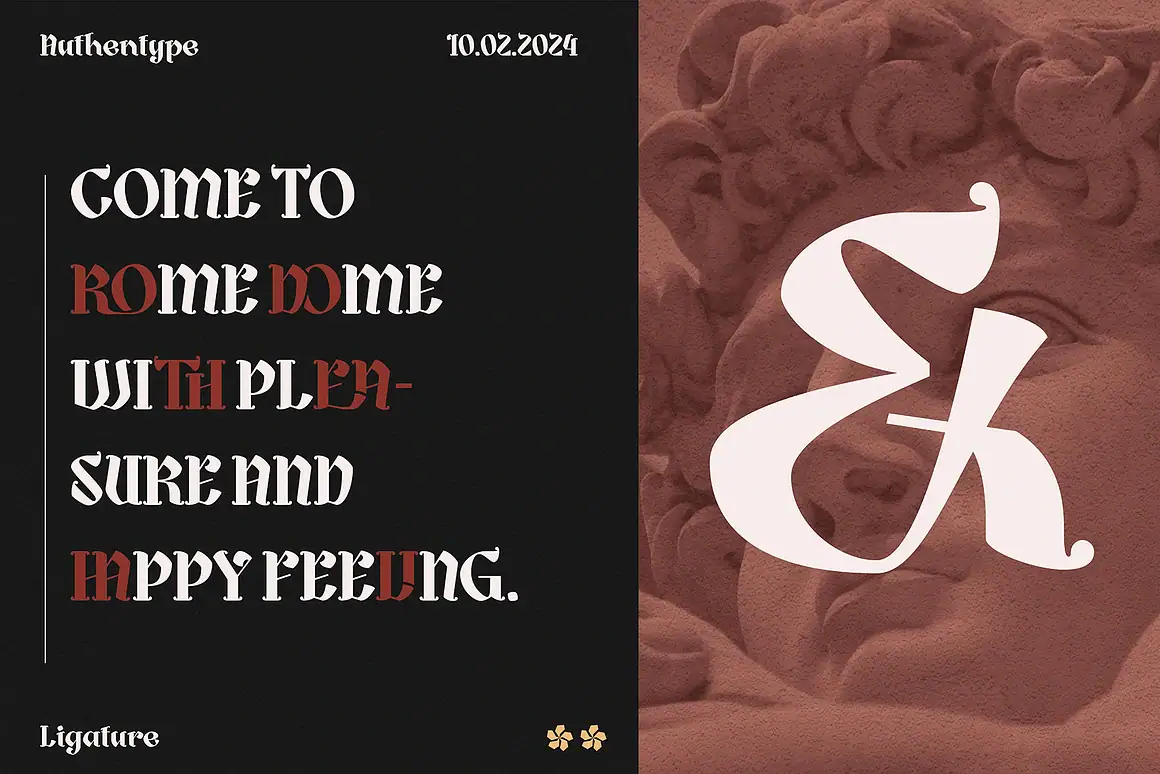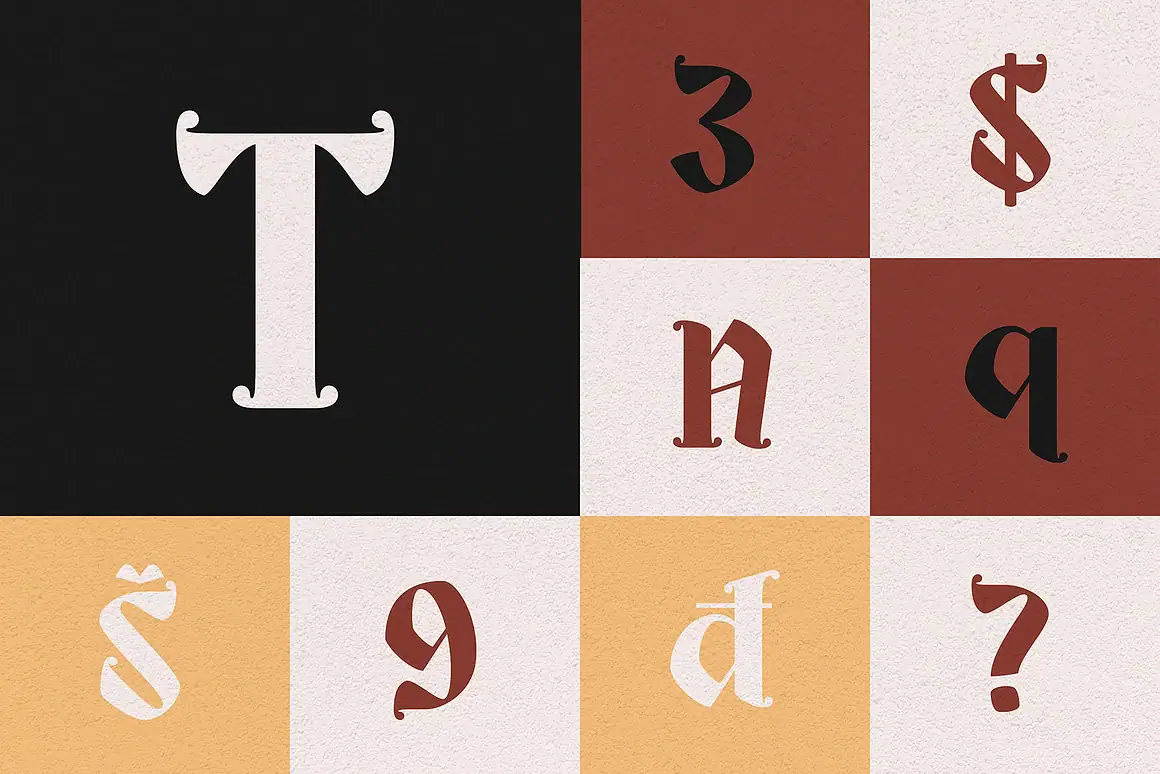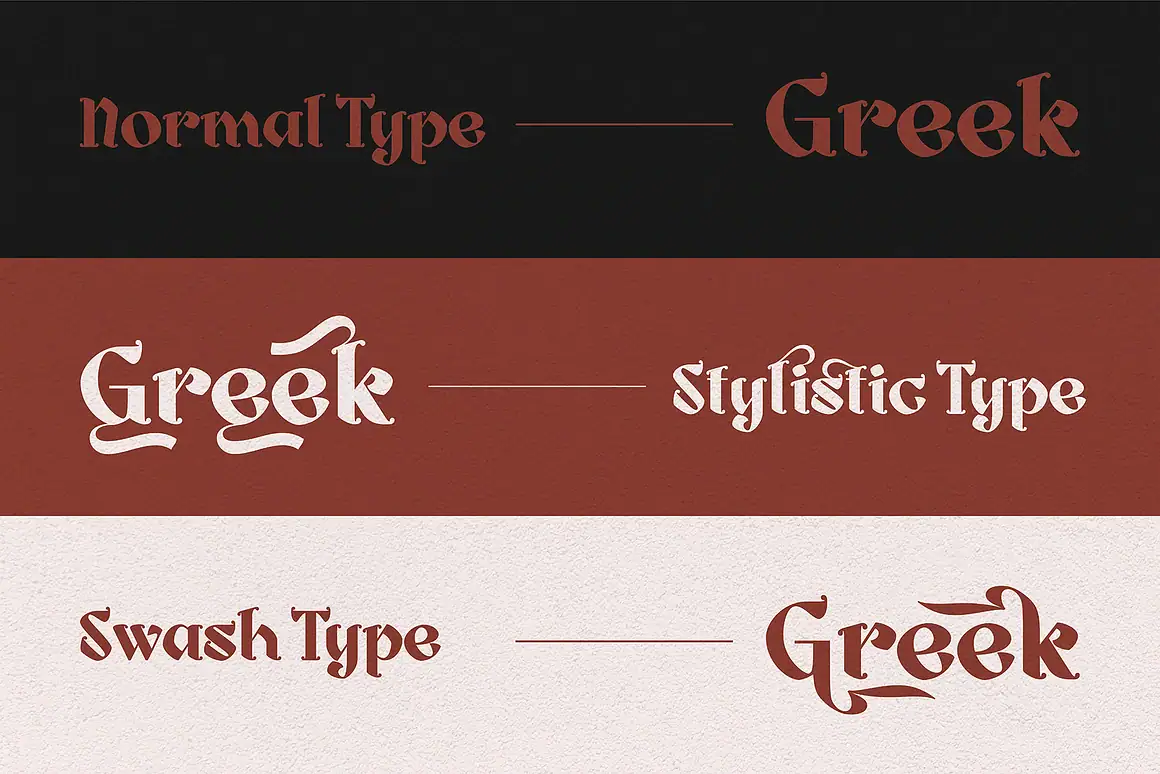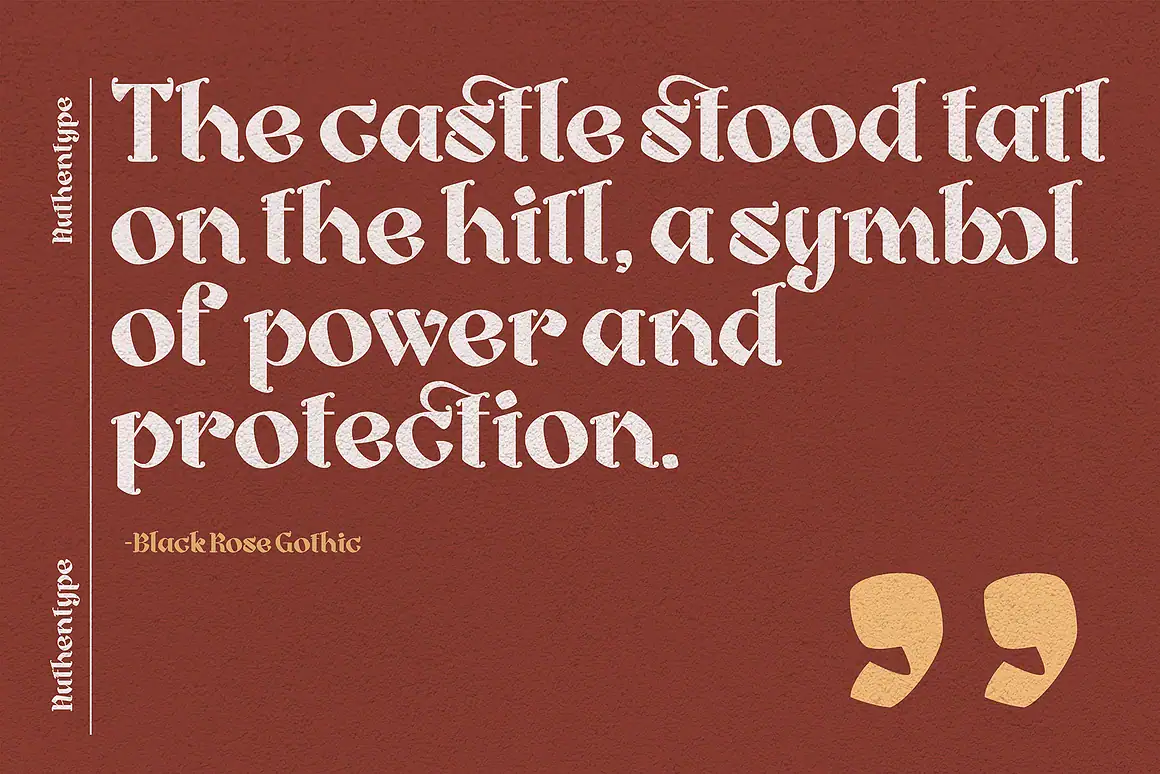
Black Rose Gothic Font
Black Rose Gothic Font is a refined gothic serif font that seamlessly blends dark elegance with a vintage allure. Designed to captivate, this font features meticulously crafted swashes, stylistic sets, and ligatures, lending each letter a unique, artistic flourish. Its timeless gothic style makes it ideal for creating a moody and romantic aesthetic, bringing sophistication and depth to any project.
With comprehensive multilingual support, “Black Rose Gothic” expands its reach to a global audience, making it perfect for diverse design needs—from branding and album covers to posters and editorial layouts. The font package includes OTF, TTF, WOFF, and WOFF2 formats, ensuring seamless compatibility across various platforms and design tools, giving you creative freedom wherever inspiration strikes.
Let Black Rose Gothic bring a sense of mystery and elegance to your designs, standing out as both a functional and beautiful choice for those looking to make a bold statement.